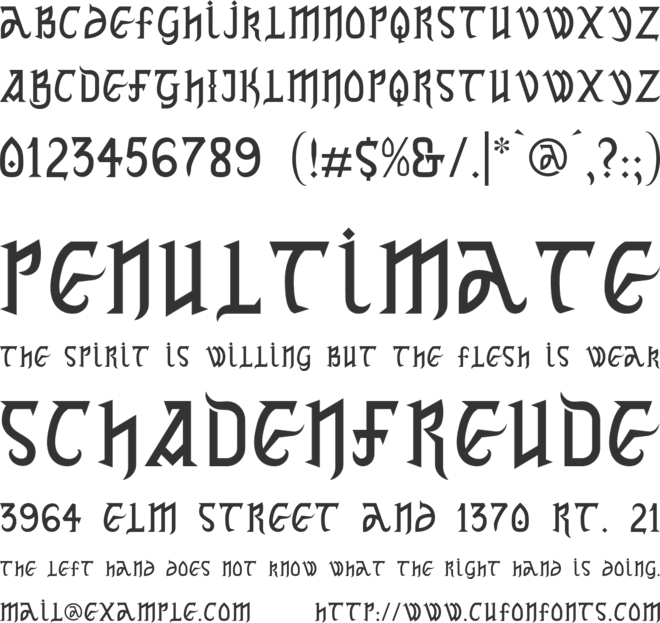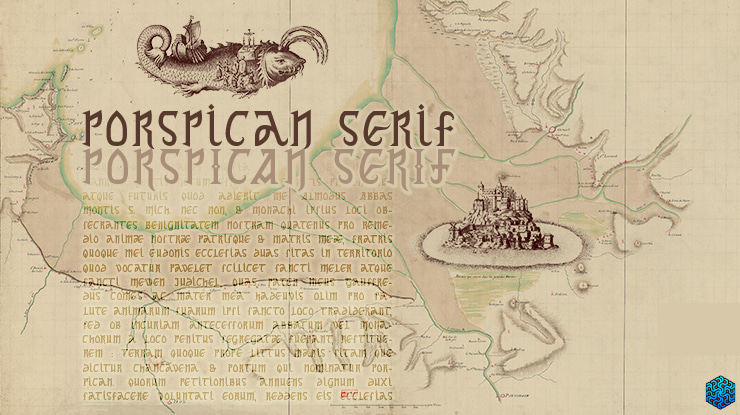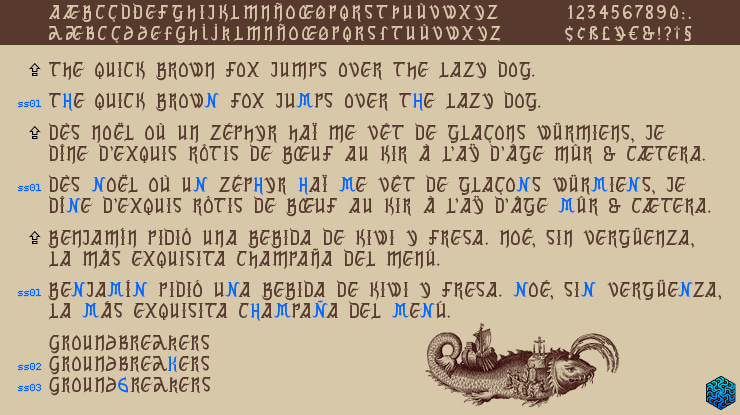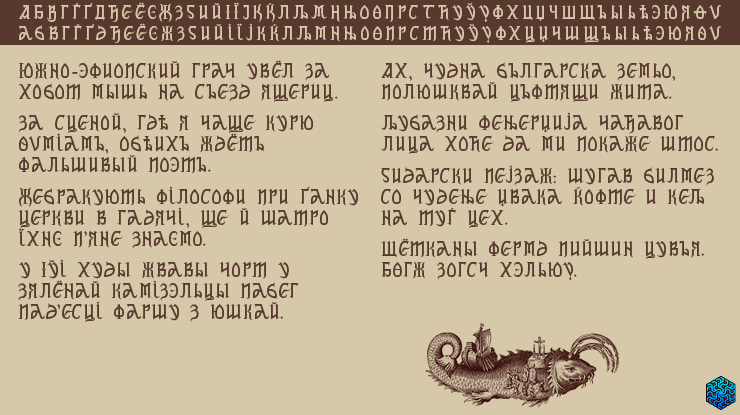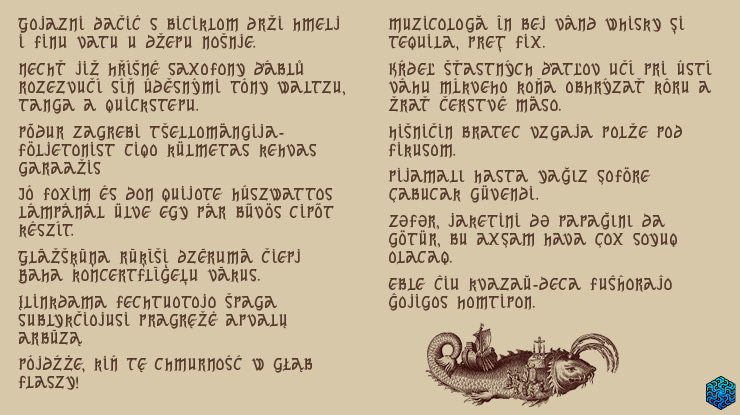
Porspican Serif Font
Nov. 28th 2022 This font is brought to you by Frédéric ROBIN https://linktr.ee/robinfredericf I created this font from decorative titles that I used to hand write on my CDs a decade ago, inspired then by various fonts I liked. Free for any personal or commercial use. Feel free to tag me on social media to show this font in use in your designs.
Mar. 5th 2023 This new version 007.16 includes Cyrillic and additional accented Latin characters, and the kerning was reworked. Some characters (such as E, R) have cleaner curves, and a few characters that I had to redesign for Cyrillic (such as the м that must not look like the m, the н that must not look like the h) are also available as opentype alternate latin characters. Previous version 004 from Nov. 27th 2022 is still available here http://robinfredericf.free.fr/typo.htm if needed for backward compatibility (kerning) in a document where it was already in use.